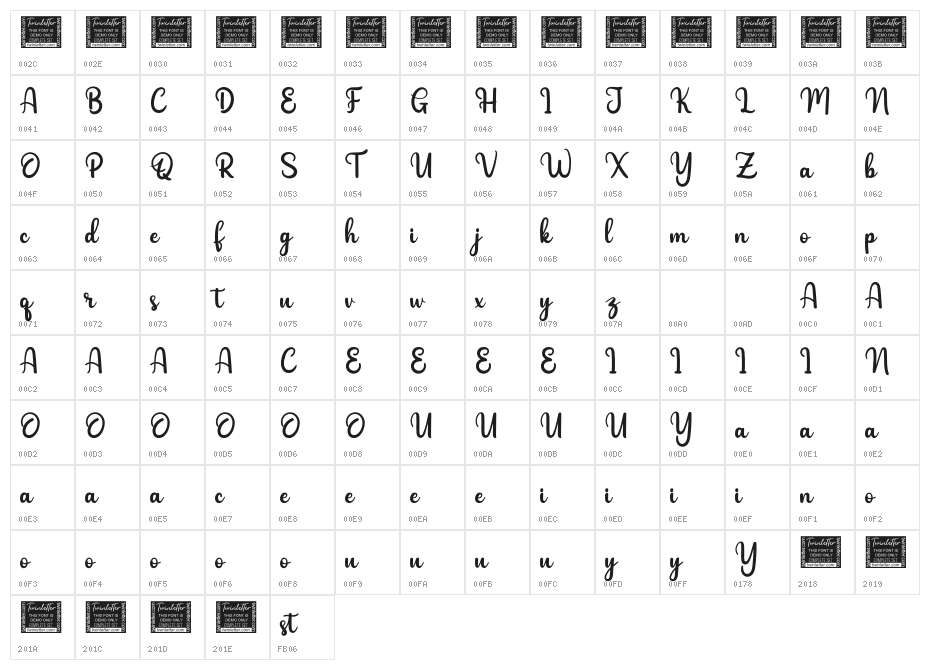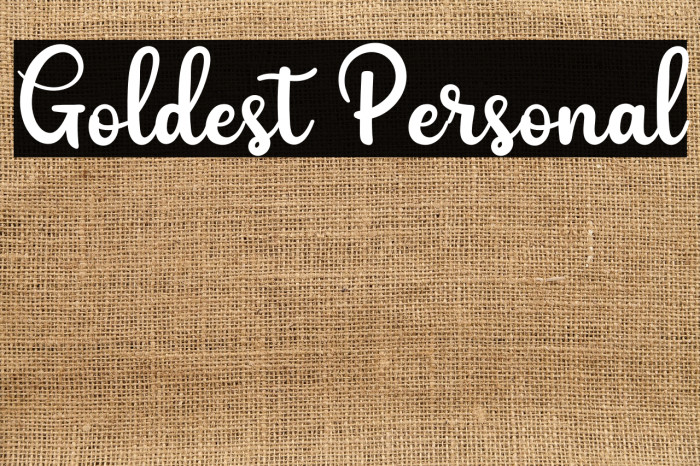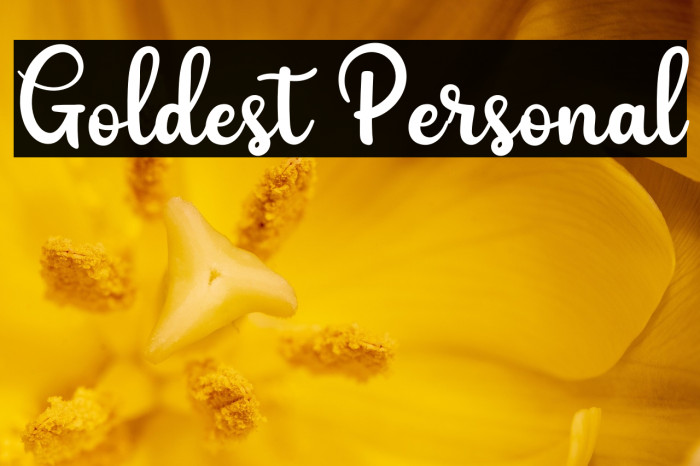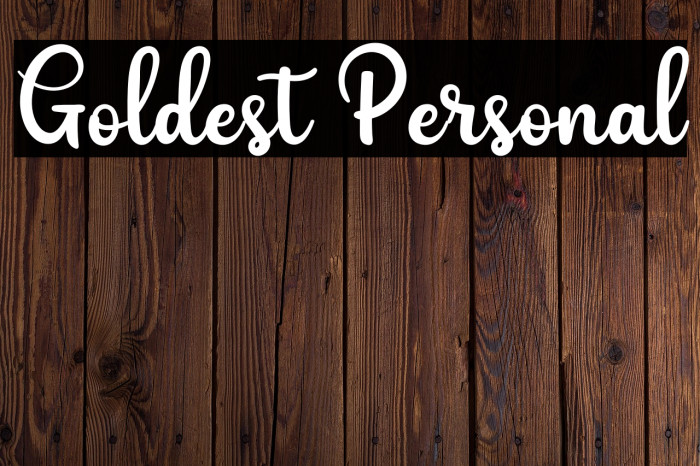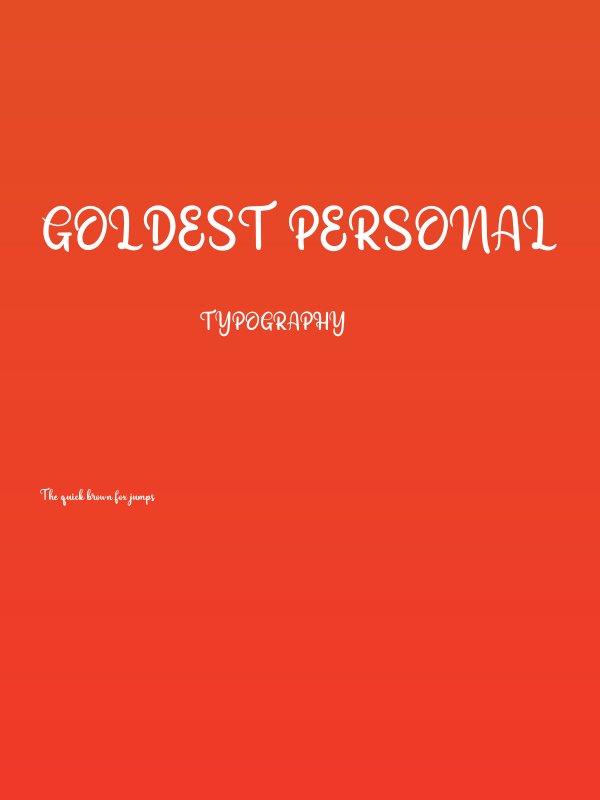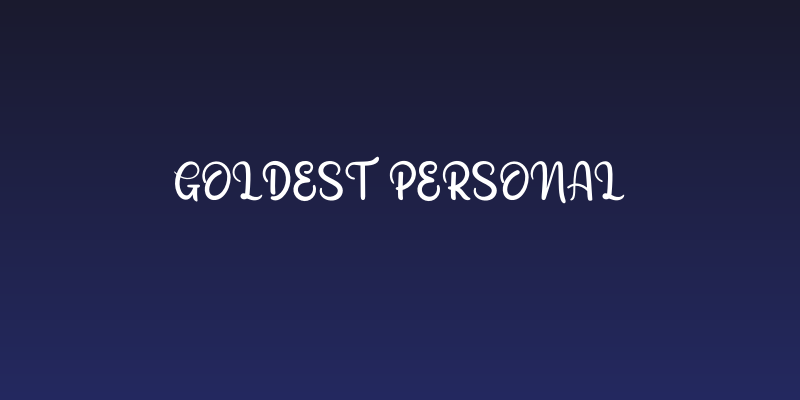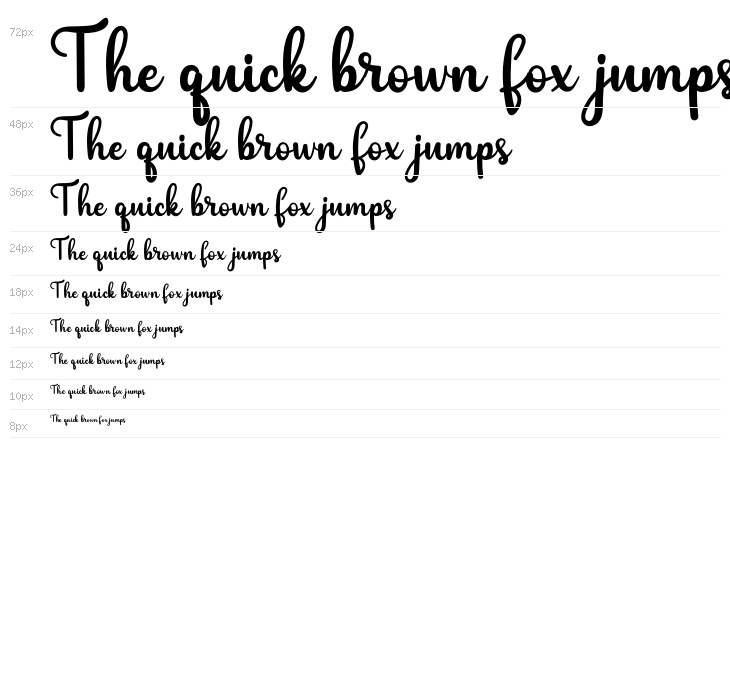
Goldest Personal Font
Goldest Personal Description
This font features a playful and elegant script style with a handwritten appearance. The uppercase letters are bold and slightly condensed, giving a strong presence, while the lowercase letters are more fluid and connected, adding a touch of sophistication. The characters have a consistent stroke width, providing a balanced look. The font includes a full set of uppercase and lowercase letters, numbers, and a selection of special characters. Its design is suitable for projects that require a personal and creative touch.